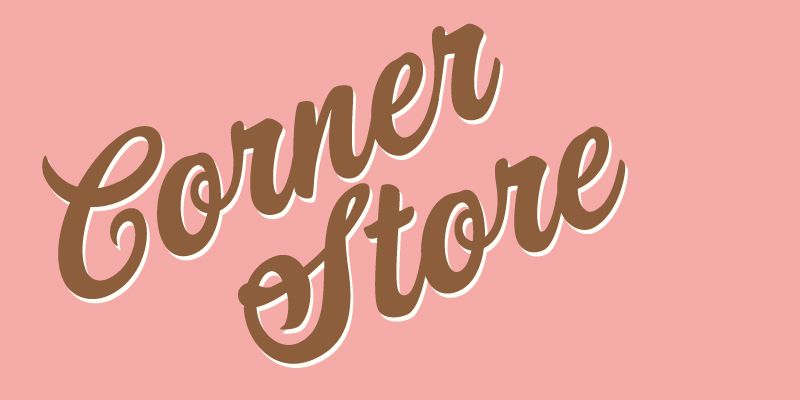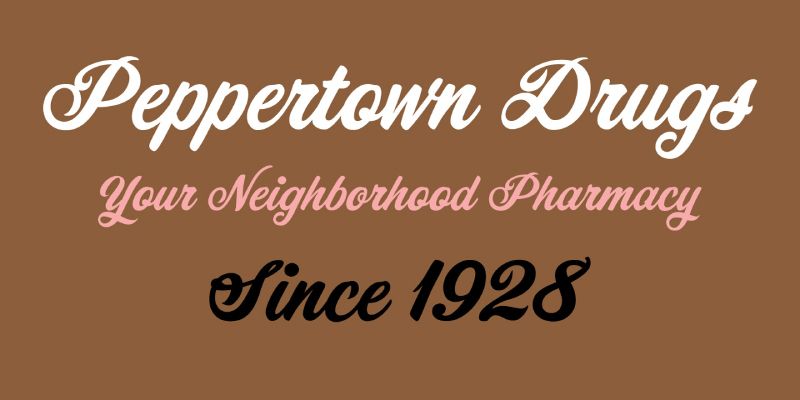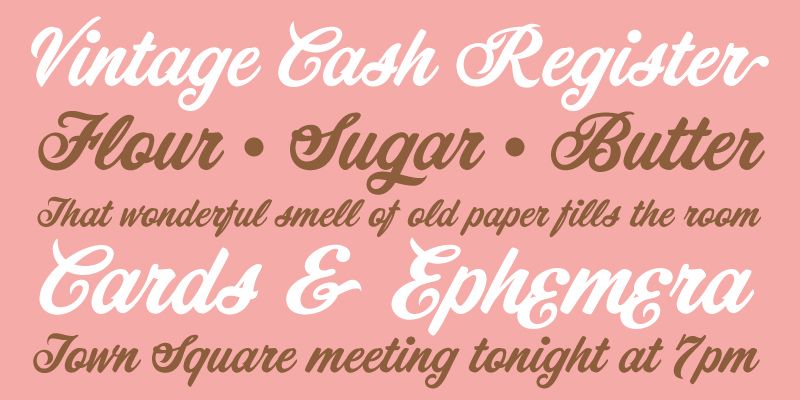
Corner Store is a nostalgic script font from Jukebox that evokes the hand lettering seen on old fashioned store windows. It contains several alternate glyphs for a more varied feel.
Jukebox
Jukebox is the brainchild of Jason Walcott, longtime type designer. Jason designed his first typeface called “Holiday Times” in the fall of 2000, and that started a long and wonderful journey that lead to the Jukebox of today.
After designing five or six more fonts, Jason started selling his typefaces on MyFonts.com in summer of 2001. At that time, his foundry went under the name of “JAW Fonts”. Several of his type designs quickly became popular on MyFonts.com and the sales grew through late 2002.
In early March of 2003, Walcott received a phone call from the then up-and-coming Veer Inc. Veer was interested in carrying his font library which then consisted of about 50 faces. The deal with Veer blossomed into a whole new venture and JAW Fonts was closed down, retooled and relaunched as Jukebox in June of 2003. The exclusive product of Veer from 2003 to 2015, Jukebox became one of the industry standards in type libraries available. Jukebox fonts have been used on countless products and designs, films, books, television productions and more, by companies such as Disney, HGTV, The Food Network, Disney Theme Parks, Hershey’s, VistaPrint and many others. In 2011 Jason’s Eloquent font family was awarded a spot in the “Best of Typeface Design” in Communications Arts Magazine’s Typography Annual.
On March 31st of 2016, Veer closed its doors forever and curation of the Jukebox library returned to Jason, who is committed to making sure Jukebox will continue to provide the design world with high-quality, professional type.